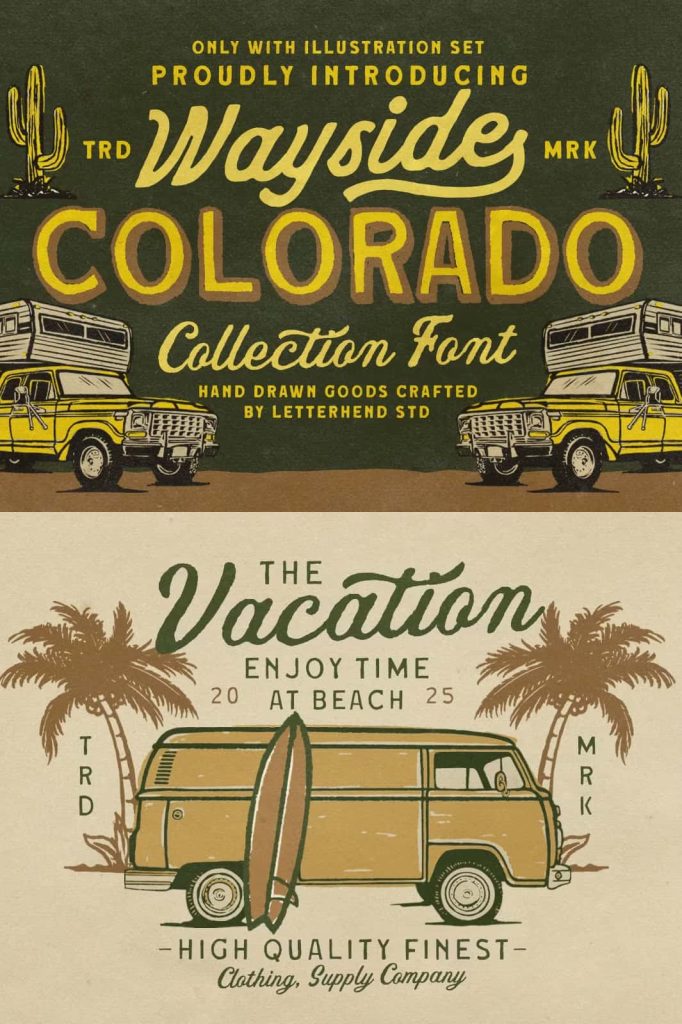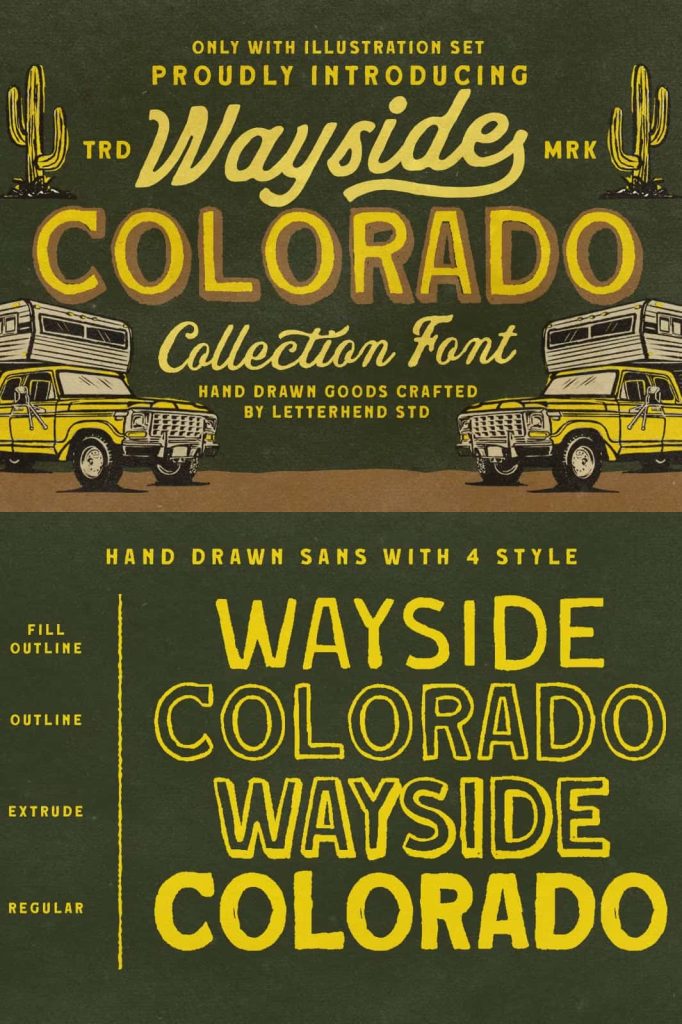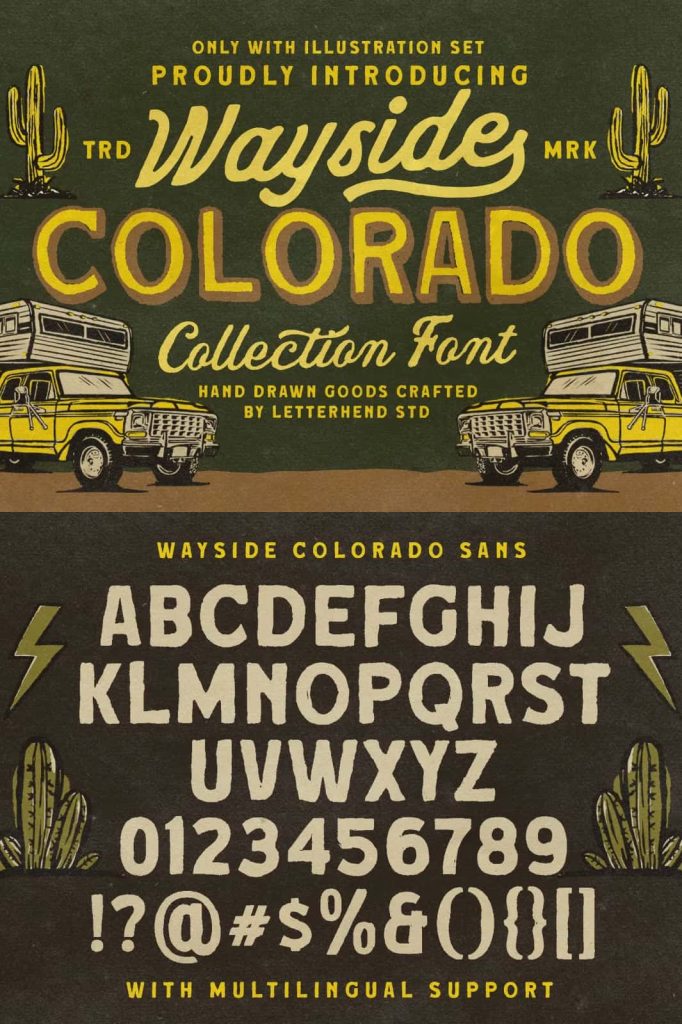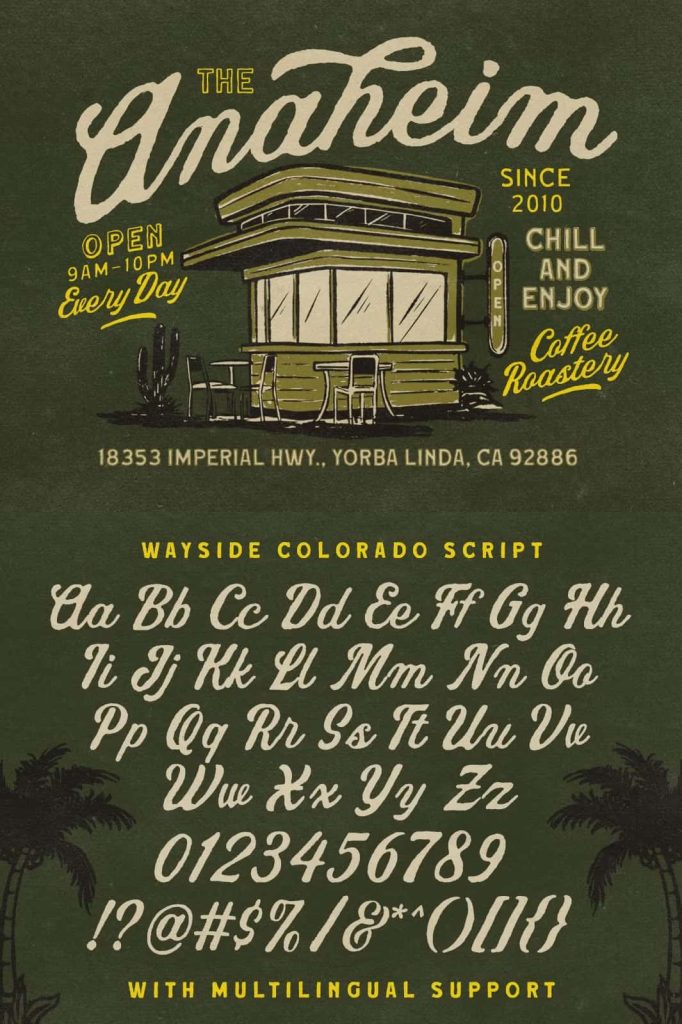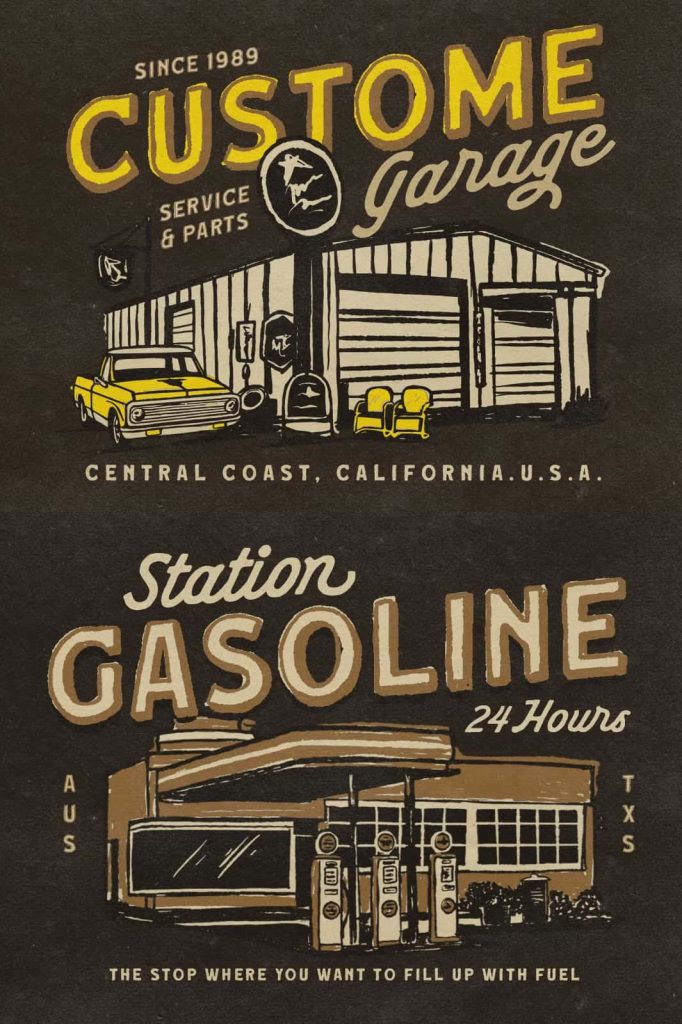
Wayside Colorado Collection Font: A Handcrafted Typeface with Western Soul
Wayside Colorado Collection Font is a beautifully handcrafted typeface that captures the spirit of open roads, timeless travel, and classic Western charm. Inspired by retro road trips, sun-faded highway signage, and nostalgic Americana, this font delivers a strong sense of place and story. Every letter feels intentional, bringing warmth, character, and authenticity to design projects that aim to connect emotionally with their audience.
This typeface reflects the rugged beauty of the American West while remaining versatile enough for modern creative applications. Its handcrafted nature ensures that each character feels organic rather than mechanical, making Wayside Colorado a powerful choice for designers who value personality and visual depth.
Inspired by Retro Road Trips and Sun-Faded Signage
The inspiration behind Wayside Colorado comes from long drives through scenic highways, roadside motels, and weathered signs that tell stories of travel and time. The font channels the look of lettering that has been shaped by sun, wind, and years of exposure. This influence creates a sense of nostalgia that feels genuine and inviting.
The subtle imperfections and rough strokes echo the charm of hand-painted signs and vintage typography found along historic routes. These details add texture and warmth, allowing designs to feel lived-in and authentic rather than polished and sterile.
Rough Strokes That Add Warmth and Character
One of the defining features of the Wayside Colorado Collection Font is its rough stroke treatment. These strokes introduce a tactile quality that immediately draws the eye and adds emotional depth. Instead of perfectly smooth edges, the font embraces irregularities that enhance its handcrafted appeal.
This roughness does not compromise readability. Instead, it strengthens the font’s visual impact, making it ideal for bold applications such as logos, headlines, and signage. The balance between clarity and texture ensures that messages remain strong while feeling approachable and human.
Perfect for Logos, Branding, and Apparel Design
Wayside Colorado excels in logo design, where personality and memorability matter most. Its Western-inspired letterforms help create distinctive brand identities that feel confident, grounded, and timeless. The font works particularly well for vintage-style cafés, outdoor brands, breweries, and lifestyle businesses that want to communicate authenticity and adventure.
In branding applications, this typeface adds consistency and character across multiple touchpoints. From business cards and packaging to signage and promotional materials, Wayside Colorado supports a cohesive visual language that feels intentional and well-crafted.
A Strong Choice for Posters and Promotional Graphics
When used in posters and promotional designs, Wayside Colorado commands attention without overpowering the message. Its bold structure and textured strokes create strong headlines that stand out in both print and digital formats. This makes it an excellent option for event promotions, Western-themed gatherings, and adventure-focused campaigns.
The font also performs exceptionally well in apparel design. Whether printed on t-shirts, hats, or merchandise, its rugged style and vintage appeal translate beautifully to fabric, reinforcing brand identity and visual storytelling.
Designed for Versatility Across Print and Digital Media
Wayside Colorado is built to perform across a wide range of creative platforms. In print, it reproduces clearly and consistently, maintaining its textured charm on posters, labels, and packaging. In digital environments, the font remains legible and impactful, making it suitable for websites, social media graphics, and online advertising.
This versatility ensures that designers can rely on Wayside Colorado for long-term use across multiple projects. Its timeless Western aesthetic does not feel tied to short-lived trends, allowing it to remain relevant and effective over time.
A Typeface That Tells a Story
Wayside Colorado Collection Font is more than a decorative typeface; it is a storytelling tool. Each letter carries the feeling of movement, exploration, and heritage. By using this font, designers can communicate values such as craftsmanship, authenticity, and adventure without relying on additional visual elements.
The font’s character-rich design helps projects feel personal and meaningful. It invites viewers to slow down, take notice, and connect with the message on a deeper level.
Timeless Western Style with Modern Appeal
Wayside Colorado strikes a thoughtful balance between classic Western influences and modern usability. Its handcrafted aesthetic honors traditional typography while its clean structure ensures professional performance. This balance makes it suitable for both nostalgic and contemporary design projects.
For designers seeking a font that brings warmth, charm, and lasting impact, Wayside Colorado Collection Font delivers a compelling solution. It stands as a reliable choice for logos, branding, posters, apparel, and Western-themed events, offering a timeless visual voice that continues to resonate.